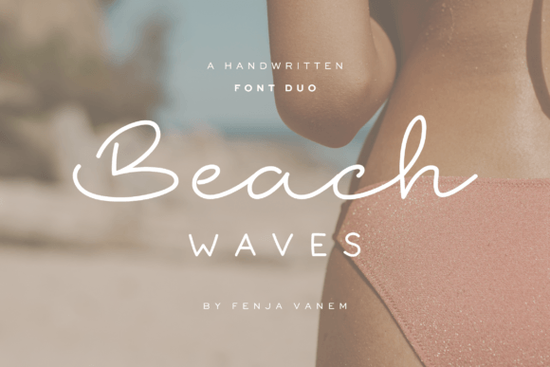
If you've been searching for a font pairing that brings coastal warmth and relaxed elegance to your designs, the Beach Waves Duo Font is worth a close look. It combines two complementary typefaces Seawashed and Tidelines that work beautifully together for wedding stationery, branding, social media graphics, and print-on-demand products. In this review, I'll walk you through what makes each font special, who it's best suited for, and how to get the most out of this duo in your next project.
- Seawashed A clean, sans-serif style with hand-drawn character details. It comes in Regular and Bold weights, giving you flexibility for both body text and emphasis. It also supports multiple languages, which is a practical bonus for international projects or multilingual branding.
- Tidelines A flowing, handwritten script font with smooth curves and organic strokes. Think of it as the more expressive half of the pair ideal for headings, logos, and accent text where you want personality and warmth.
Together, they balance readability with charm. Seawashed keeps things grounded, while Tidelines adds that handcrafted, free-spirited feel.
What Types of Projects Work Best With This Font Duo?
This pair was clearly designed with coastal, nature-inspired, and romantic aesthetics in mind. Here are some practical use cases where these fonts really shine:
- Wedding invitations and save-the-dates Tidelines' elegant script pairs wonderfully with soft, beachy color palettes. If you're working on bridal stationery, it sits nicely alongside other elegant wedding signature fonts you might already use.
- Social media graphics Quote posts, announcement templates, and Instagram stories benefit from the handwritten warmth of Tidelines paired with the clean readability of Seawashed.
- Print-on-demand products T-shirt designs, tote bags, mugs, and posters with a summer or nautical theme look polished with this duo.
- Small business branding Salons, surf shops, coastal cafés, and lifestyle brands can use these fonts for logos, menus, packaging, and signage.
- Blog headers and website accents If you run a travel or lifestyle blog, Tidelines adds personality to your titles without sacrificing the clean feel of Seawashed for supporting text.
How Does Beach Waves Compare to Other Script Font Duos?
The Beach Waves Duo stands out because of its thematic consistency. Both fonts feel like they belong together not just in style, but in mood. Some font bundles pair a script with a serif and call it a duo, but the connection feels forced. Here, Seawashed and Tidelines share that soft, ocean-inspired personality, so transitions between the two look natural in layouts.
Compared to a romantic handwritten font style that leans heavily into love-themed designs, Beach Waves is more versatile. It works for romance, sure, but also for everyday branding and casual creative projects. And if you prefer something with more visual weight, a bold chunky script font might suit thicker display headers but you'd lose the delicate, breezy quality that makes this duo special.
For designers who like working with matching font families that include complementary weights, Beach Waves delivers that experience through its two-font approach. Seawashed's Regular and Bold options give you internal variety within the cleaner half of the pair.
Who Should Download This Font Pair?
This duo is a solid choice for:
- Designers who frequently work on seasonal or summer-themed projects
- Crafters making handmade cards, labels, or party decorations
- Print-on-demand sellers looking for fresh, on-trend typography
- Small business owners building a coastal or lifestyle brand identity
- Anyone who appreciates fonts that feel handcrafted without looking messy
It's also a good addition if you already have a collection of coastal-inspired font pairings and want to expand your options with something that feels cohesive and polished.
Tips for Getting the Most Out of This Font Duo
- Pair strategically: Use Tidelines for headings and short accent words. Reserve Seawashed for longer text blocks, subtitles, and captions where readability matters.
- Adjust letter spacing: Tidelines' flowing script sometimes benefits from slightly increased tracking, especially at smaller sizes.
- Choose your weight wisely: Seawashed Bold works well for emphasis and subheadings. Use Regular for anything longer than a sentence.
- Test on mockups first: Before committing to a final design, preview both fonts on your specific product whether that's a T-shirt, invitation, or social post to see how they read at actual size.